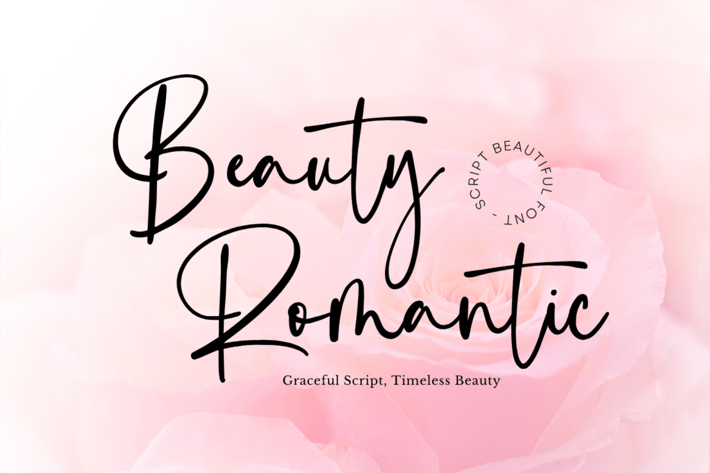
Beauty Romantic - Signature Font
Introducing Beauty Romantic, a script font that captures the essence of romance with its natural and graceful strokes. Inspired by the beauty of nature, this font exudes an organic charm that evokes feelings of love and tenderness. Perfect for projects that aim to convey romance and affection, such as wedding invitations, love letters, or romantic quotes, Beauty Romantic adds a touch of elegance and sincerity to your designs, creating a truly captivating and heartfelt expression of love.
- Numeral & Punctuation
- Multilingual support